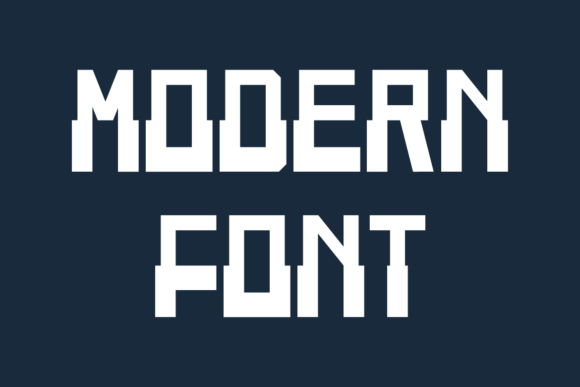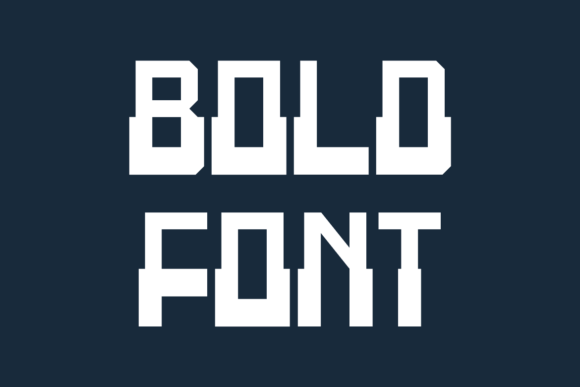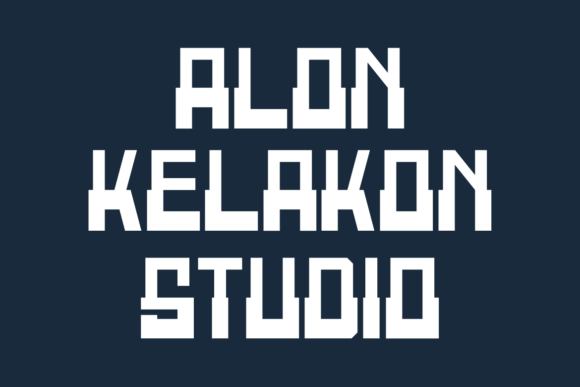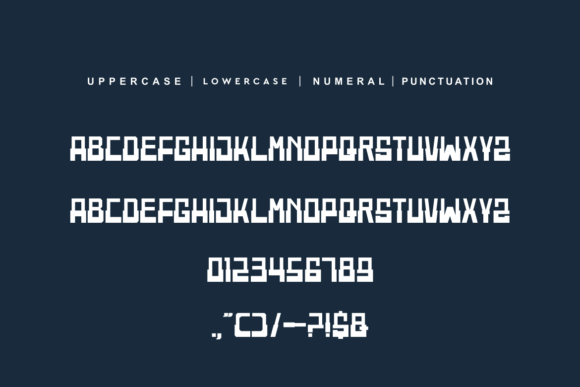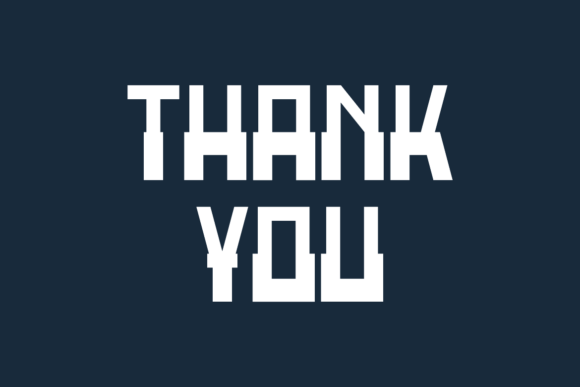
Introduction to Robotbox Font
Robotbox is a bold and assertive sans serif font.
Key Features of Robotbox Font
Why Choose Robotbox Font?
Robotbox Font offers exceptional quality and versatility, making it a valuable addition to your design toolkit. Whether you’re creating for personal projects or commercial use, Robotbox Font delivers professional results.